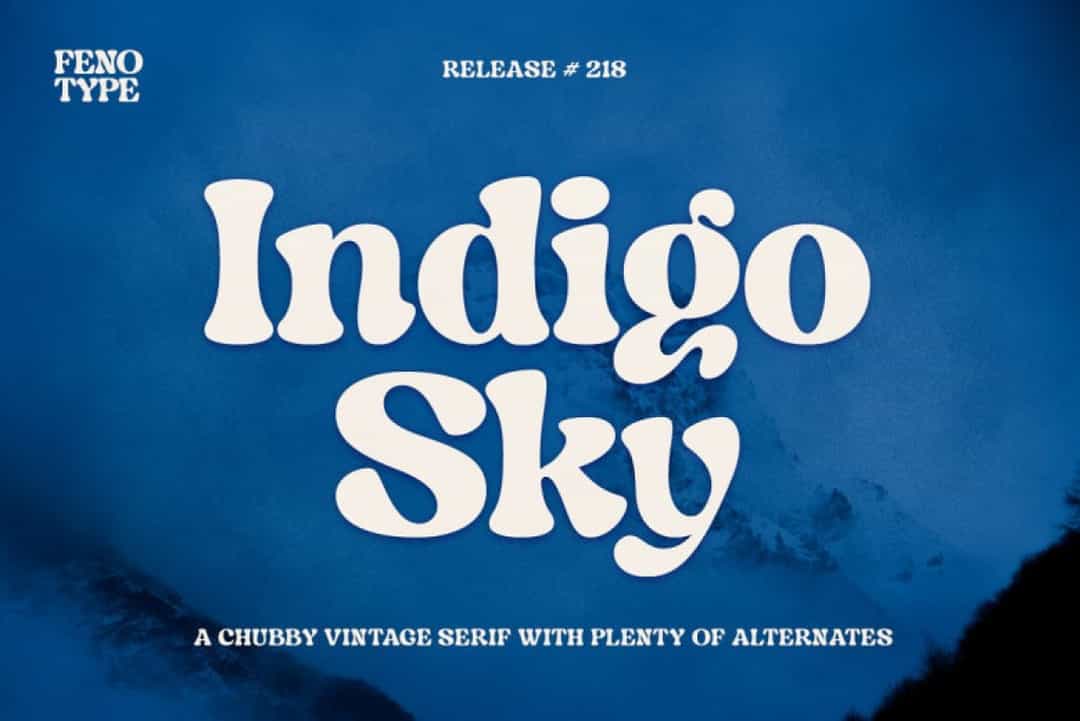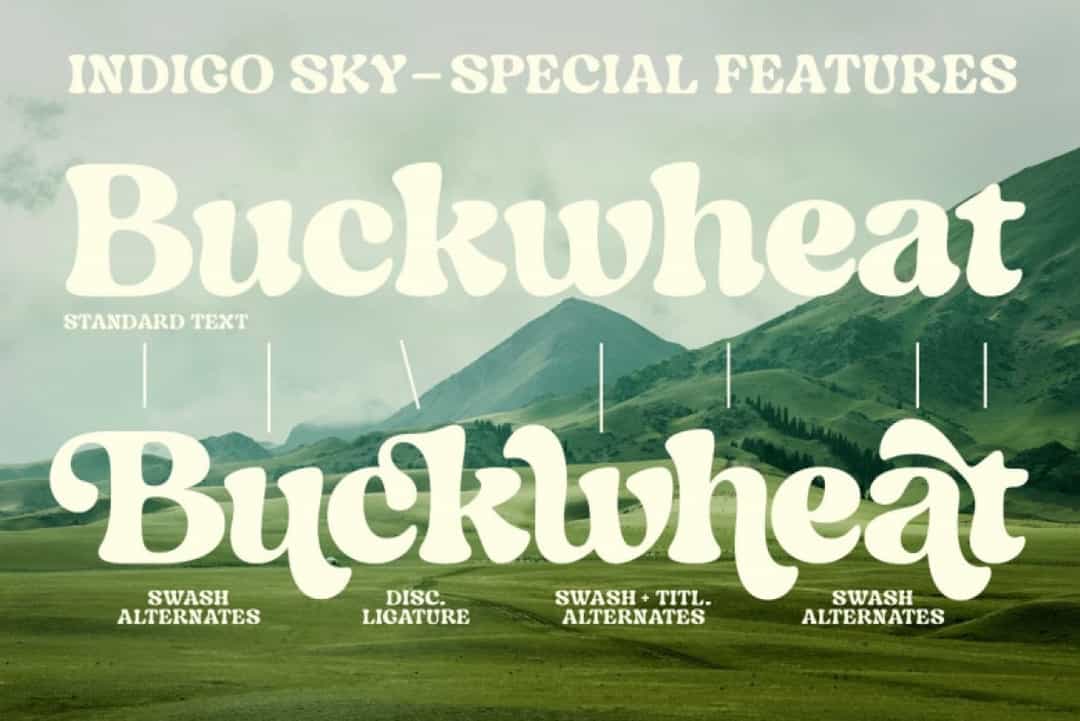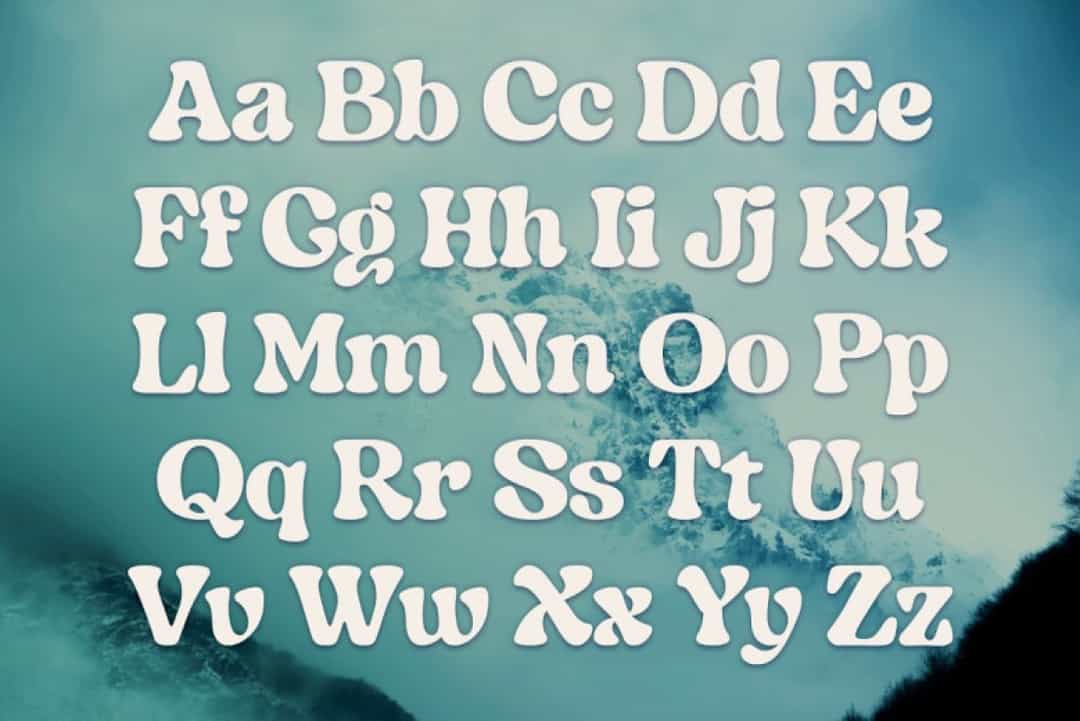
Indigo Sky can be described as a striking and luxurious rounded serif typeface with nostalgic overtones and psychoedelia elements. It features wide characters with large x-height for striking headlines adorning screens – great for posters, products or printing from websites!